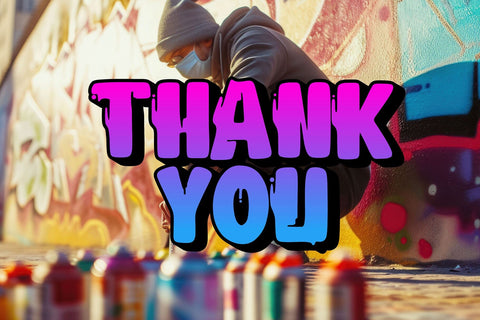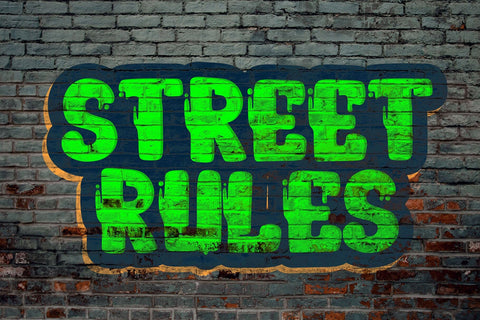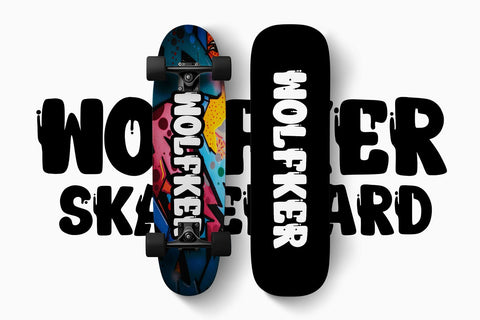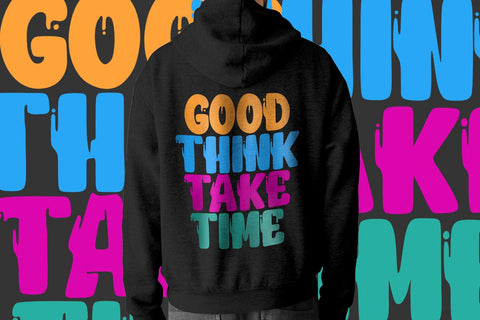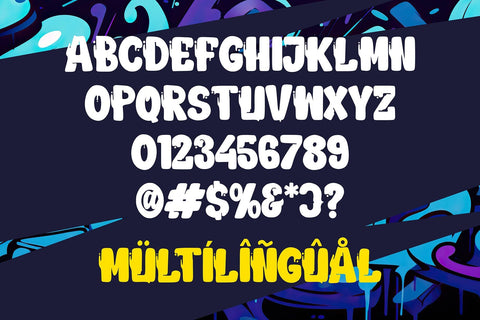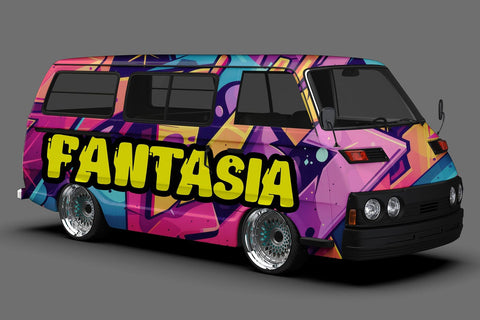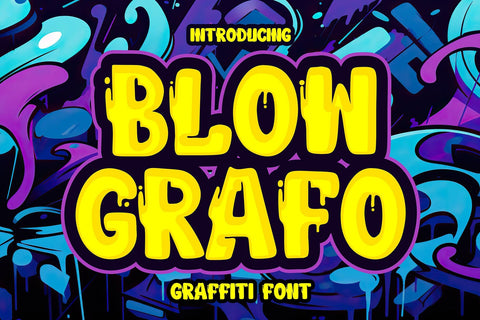
Blow Grafo - Graffiti Display Font
Blow Grafo is a graffiti display font featuring bold and dynamic characters that exude an urban and edgy vibe. This font is designed to make your projects stand out with its distinctive and expressive style, perfect for creating street art, posters, apparel, and more. The unique characters of Blow Grafo bring a sense of raw creativity and street culture to your designs, making it an excellent choice for any project that aims to capture the spirit of graffiti and urban aesthetics. Its versatile nature ensures it will enhance the visual impact of your work, making it truly unforgettable.
- Graffiti Looks Characters